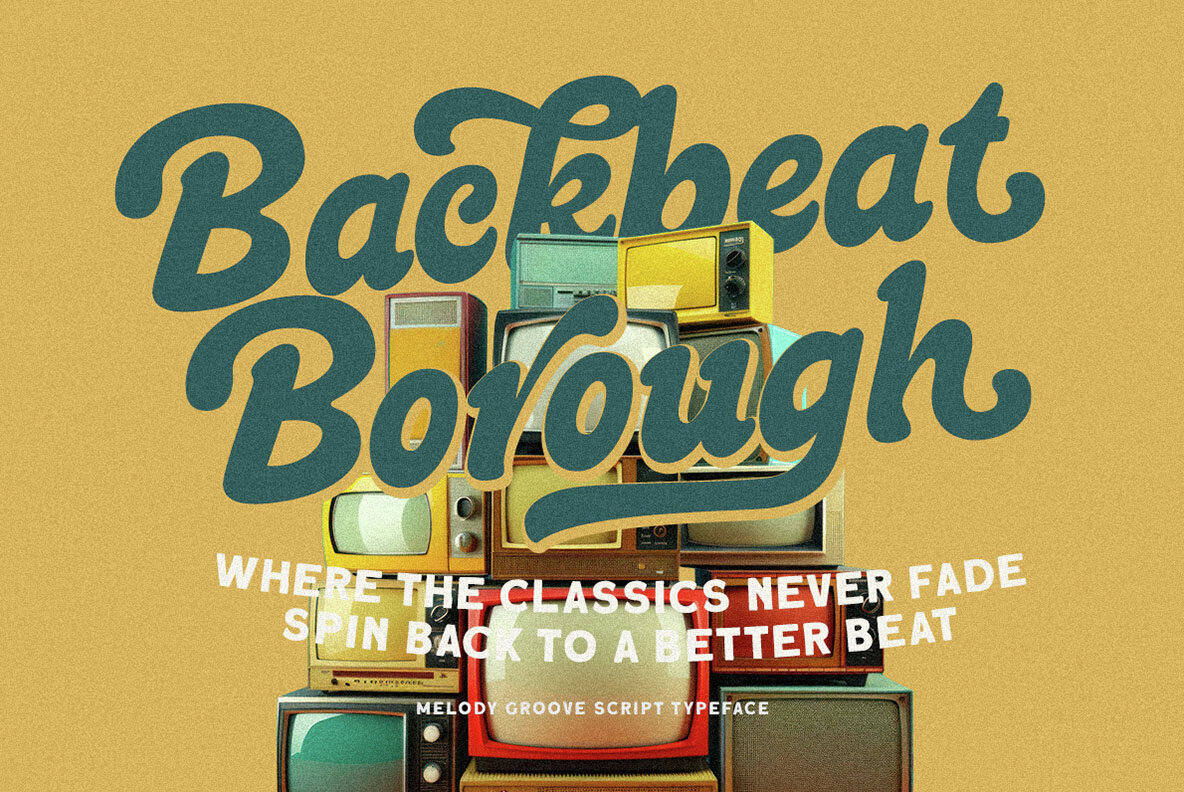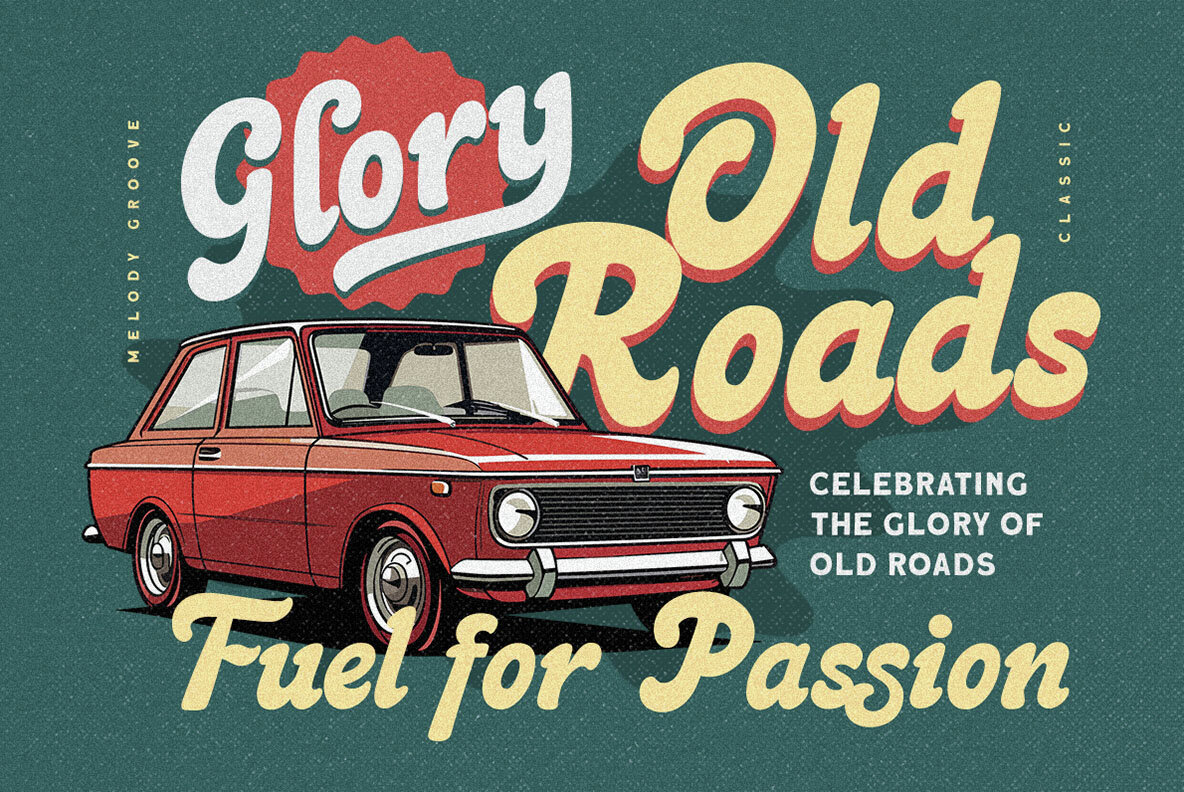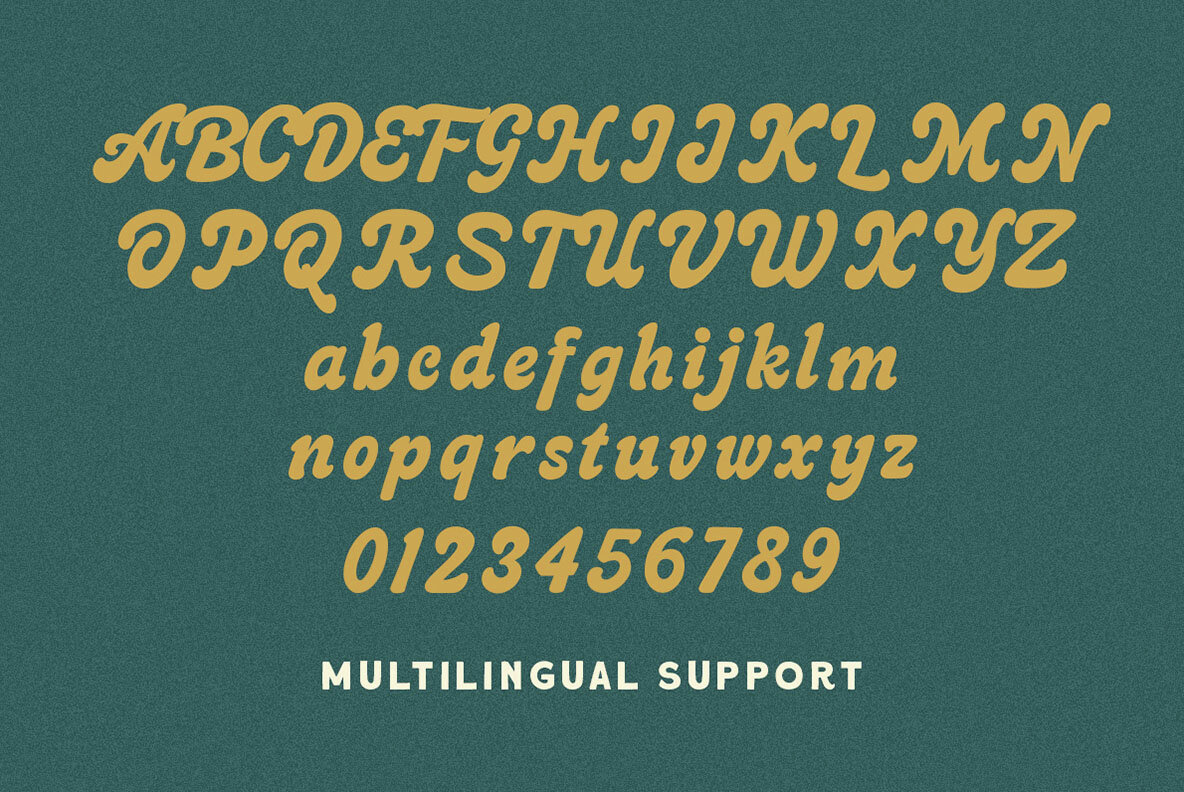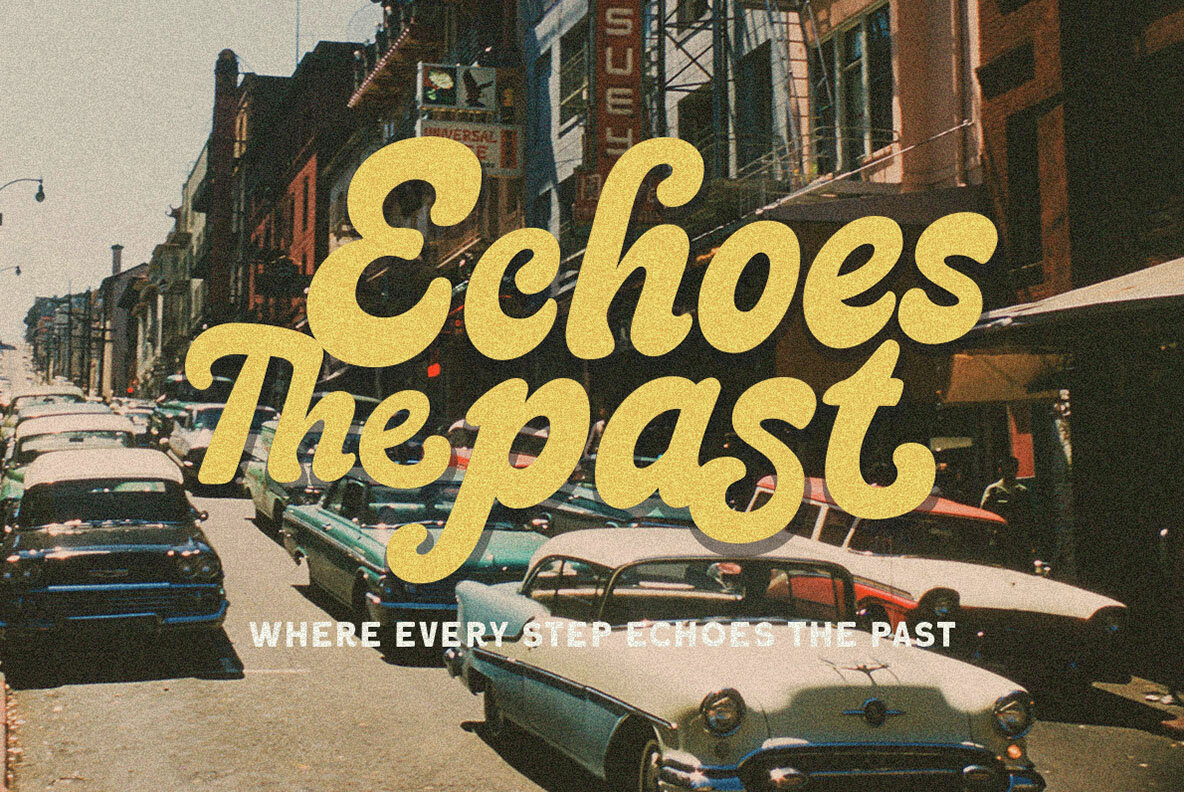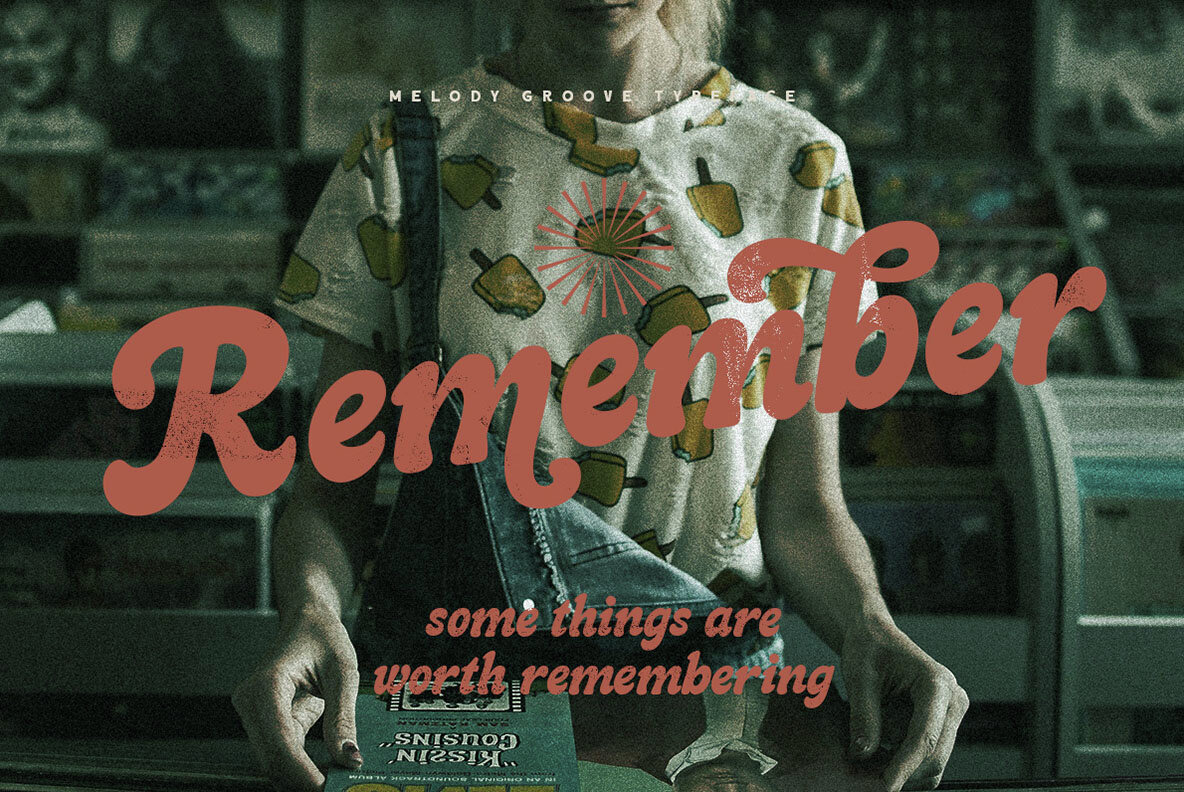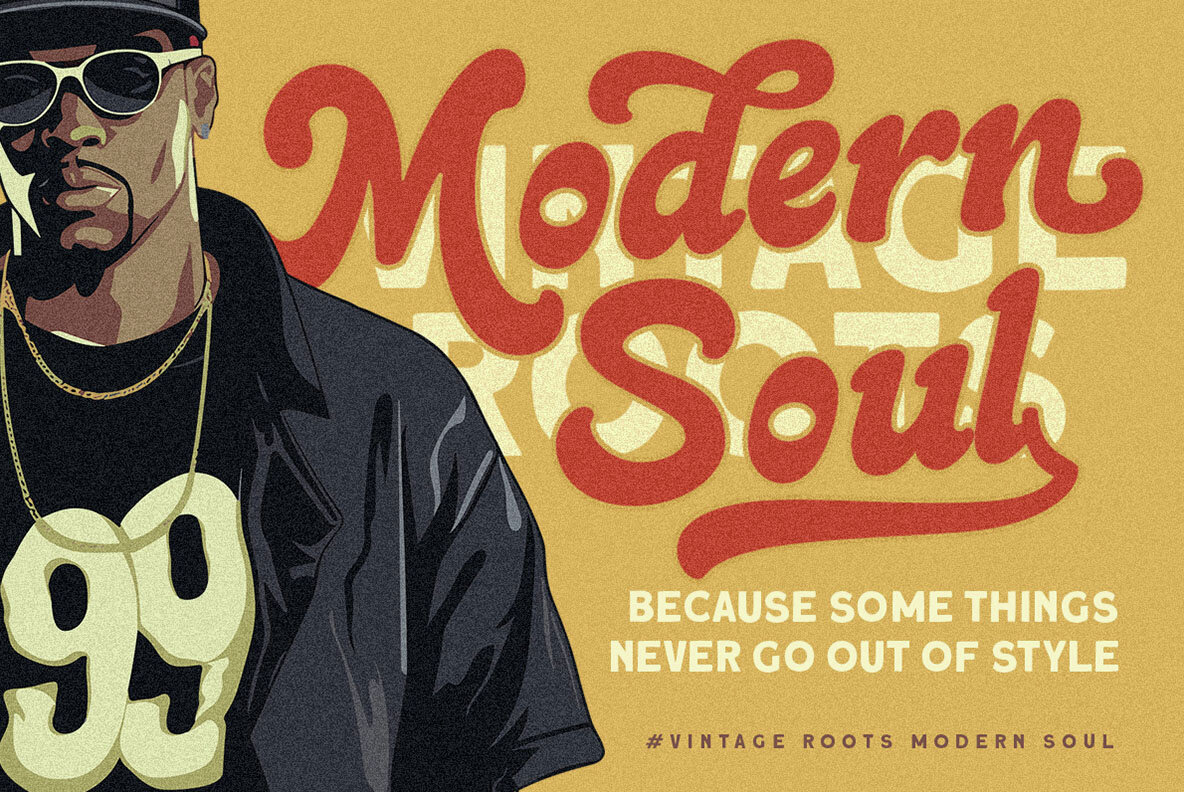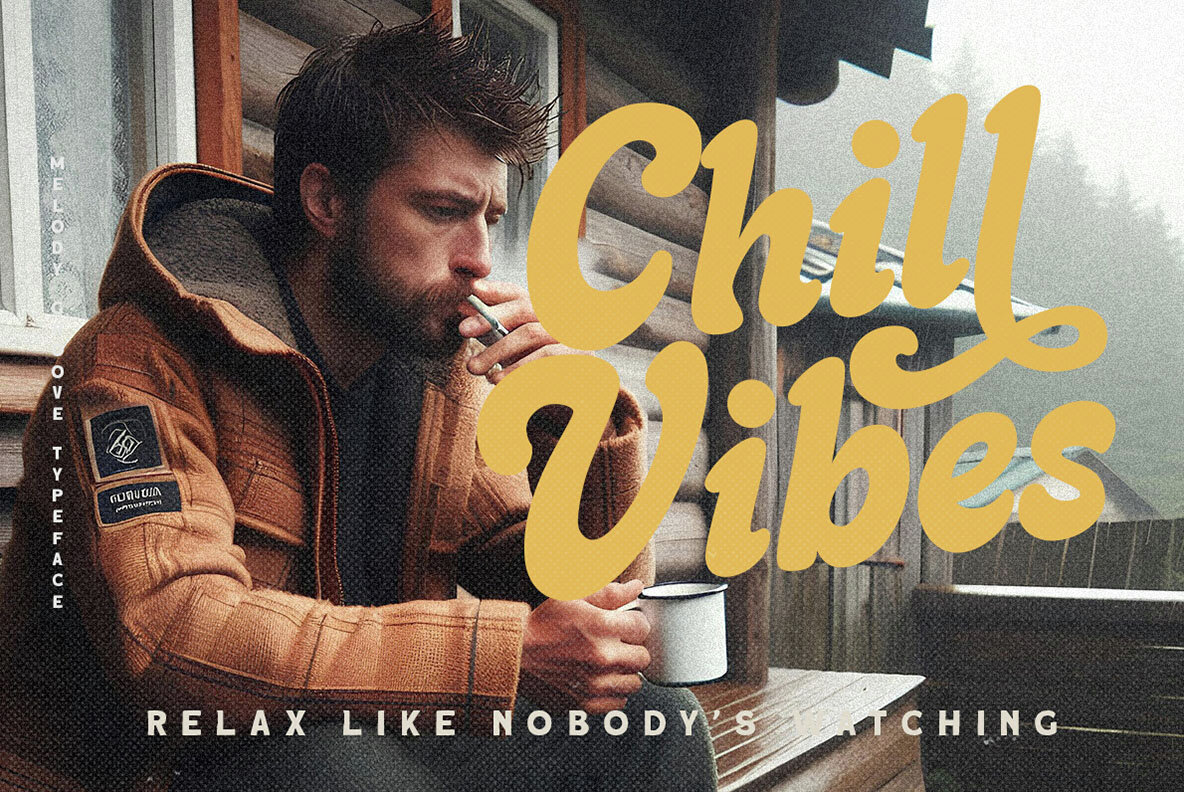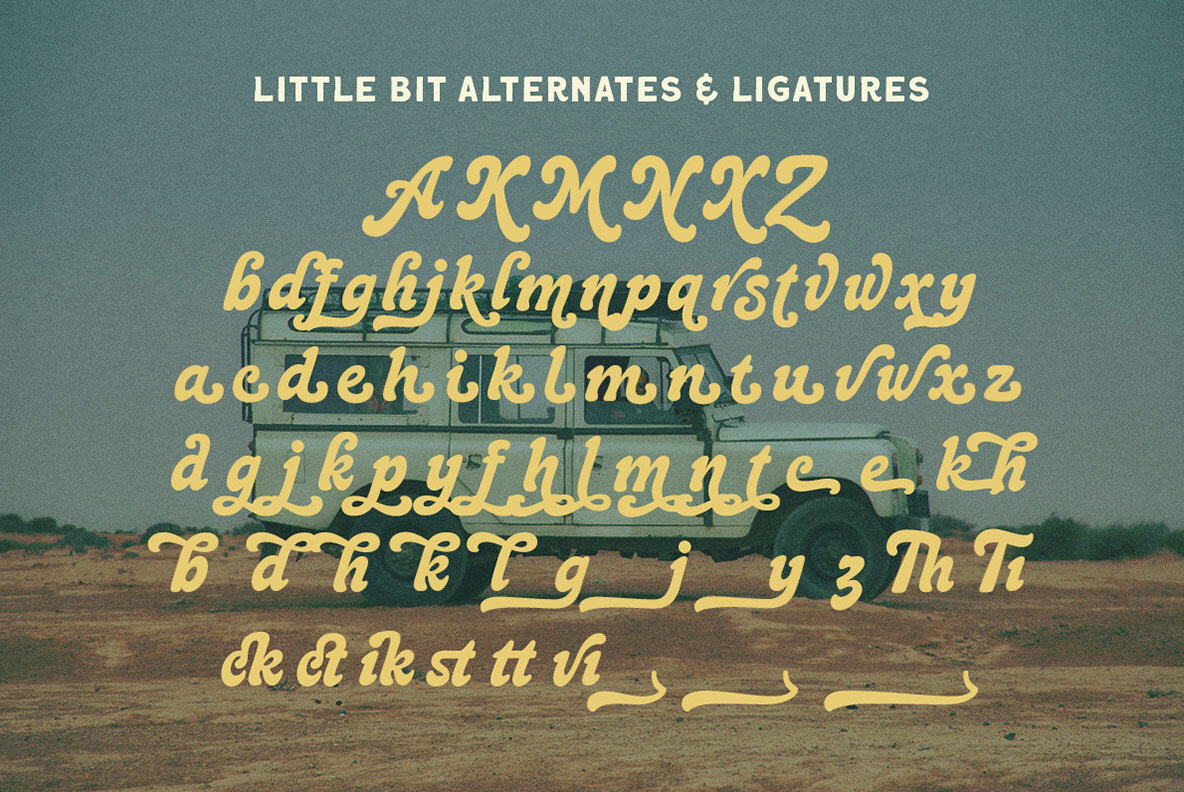
Melody Groove Font
Melody Groove Regular
Melody Groove is a bold script font that exudes a retro vibe with a modern twist. Featuring bold, flowing curves and a character-rich design, it evokes a warm yet energetic vintage feel, reminiscent of charming old-town memories. Perfect for design projects such as posters, branding, packaging, and invitations, Melody Groove brings a sense of nostalgia paired with a fresh, confident flair. Features: We highly recommend using a program that supports OpenType features and Glyphs panels like many of Adobe apps and Corel Draw, so you can see and access all Glyph variations.